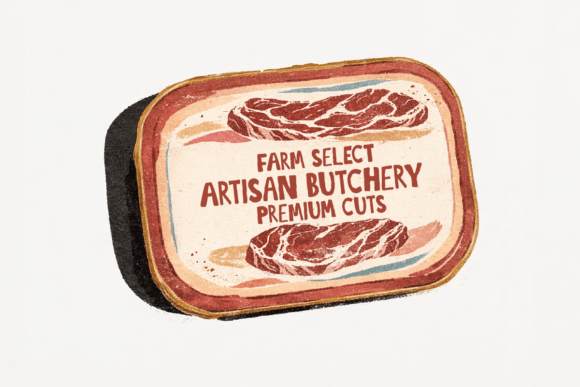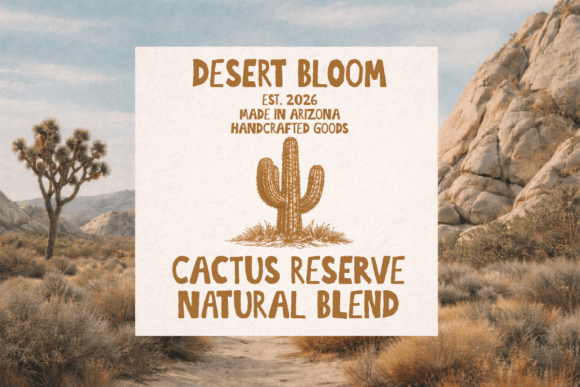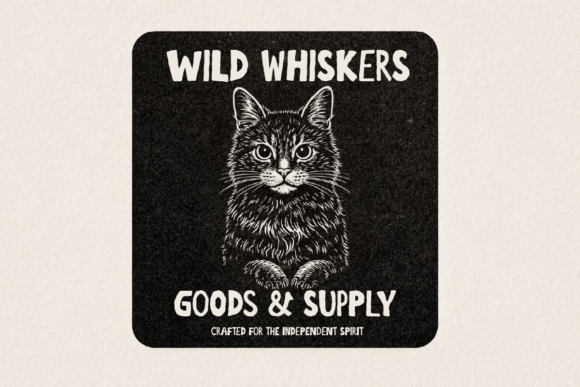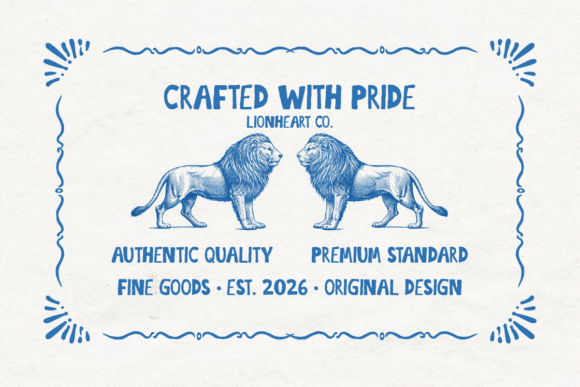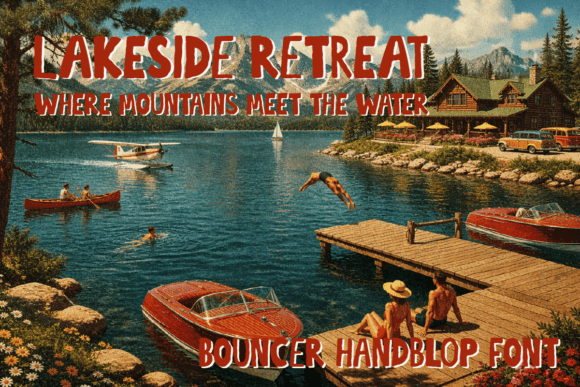
When Words Feel Like a Hug: Introducing Bouncer Handblop Font
Imagine you’re strolling through a quaint, vintage neighborhood, surrounded by charming storefronts and whimsical street art. The sun is shining, and the air is filled with the sweet scent of freshly baked goods. As you take in the sights, you can’t help but feel a sense of nostalgia and warmth. It’s in these moments that we’re reminded of the power of typography to evoke emotions and create a sense of connection.
Enter Bouncer Handblop Font, a bold and expressive handcrafted display typeface designed to capture the warmth and personality of traditional hand-lettering. This font is perfect for designers looking to add a touch of authenticity and charm to their projects. With its soft, rounded edges and slightly irregular strokes, Bouncer Handblop Font brings a friendly and approachable character to any creative endeavor.
- Unique Characteristics: This font features a playful, hand-drawn design with a bouncy feel, making it ideal for creating eye-catching headlines and titles.
Bouncer Handblop Font Review
Overall, I think the Bouncer Handblop Font is a fun and playful addition to any design project. ✨ The unique, bouncy feel of the letters makes it perfect for creating eye-catching headlines or titles. ✨ The font is also highly customizable, allowing you to adjust the size, color, and spacing to fit your design needs.
- The font’s high level of expressiveness makes it suitable for a wide range of applications, from children’s books to advertising materials.
- Its rounded edges and smooth lines give it a friendly, approachable feel that can help to engage your audience.
- The Bouncer Handblop Font also comes in a range of weights and styles, allowing you to create a consistent look across your design.
However, there are a few limitations to keep in mind. ⚠️ The font may not be the best choice for formal or professional projects, as its playful feel can come across as unprofessional. ⚠️ Additionally, the font’s unique design can make it difficult to read at very small sizes or in certain contexts.
Overall, I think the Bouncer Handblop Font is a great choice for designers who want to add a touch of whimsy to their projects. With its high level of customization and expressiveness, it’s perfect for creating attention-grabbing headlines and titles. Just be mindful of its limitations and use it judiciously in your designs.
Tips for Getting the Most Out of Bouncer Handblop Font
For best results, use Bouncer Handblop Font in bold or italic styles to emphasize text.
Experiment with different font sizes to create visual hierarchy and balance in your design.
Use Bouncer Handblop Font in combination with other fonts to create a unique and eye-catching visual identity.
Bouncer Handblop Font is perfect for:
Creating bold and playful headlines.
Designing eye-catching social media graphics.
Adding a touch of whimsy to branding materials.
Alternative Fonts to Bouncer Handblop
Great Vibes is a modern, elegant script font suitable for creative and artistic projects. It is ideal for use in advertising, branding, and packaging designs. Great Vibes features flowing lines and a relaxed feel, making it a great alternative to Bouncer Handblop for designs requiring a more refined look.
Comparison: Great Vibes has a more polished and sophisticated appearance compared to the playful, hand-drawn feel of Bouncer Handblop.
Pacifico is a beautiful, cursive font inspired by the sea and the tropical islands. It is perfect for use in beach-themed designs, travel brochures, and hospitality branding. Pacifico features a relaxed, laid-back feel, making it a great alternative to Bouncer Handblop for designs requiring a calm and soothing atmosphere.